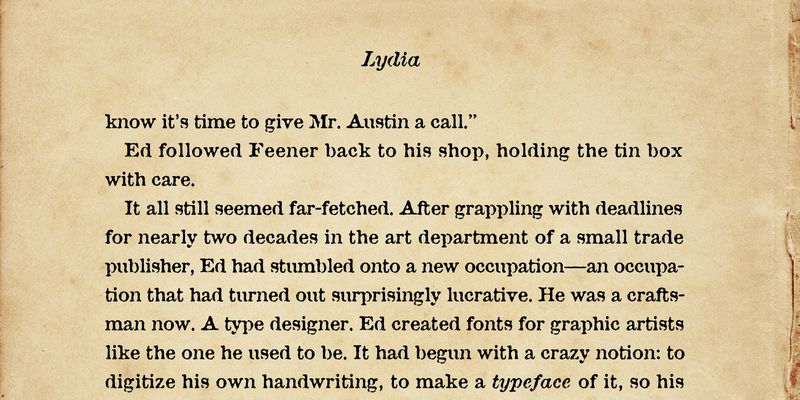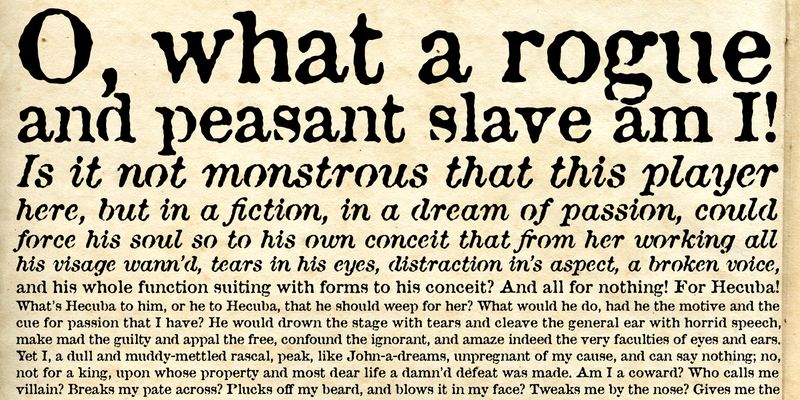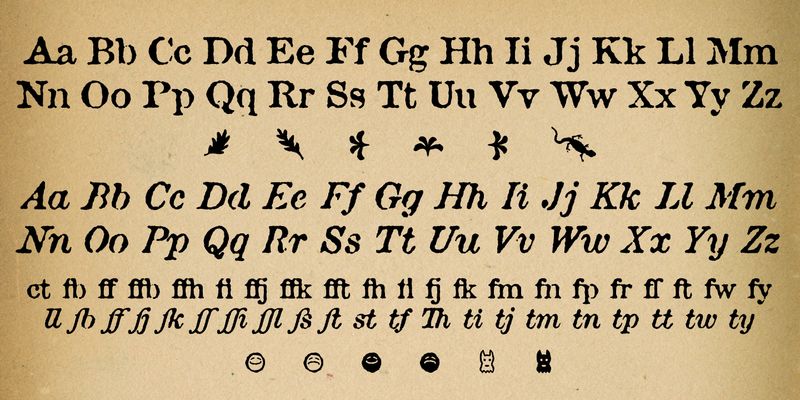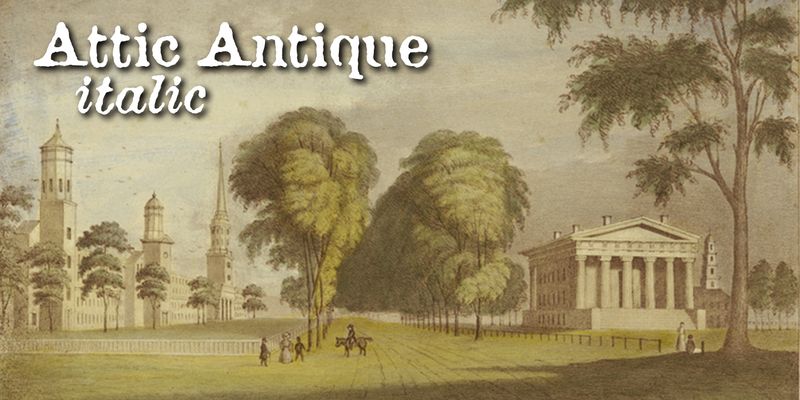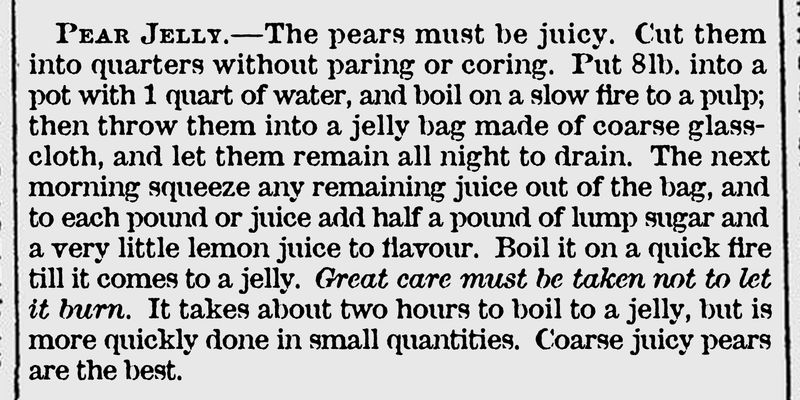
Attic Antique™ resembles an aging serif used on the pages of an old textbook. Its roman and true italic styles both come with small caps, full Latin support—and a distinctive vintage feel.